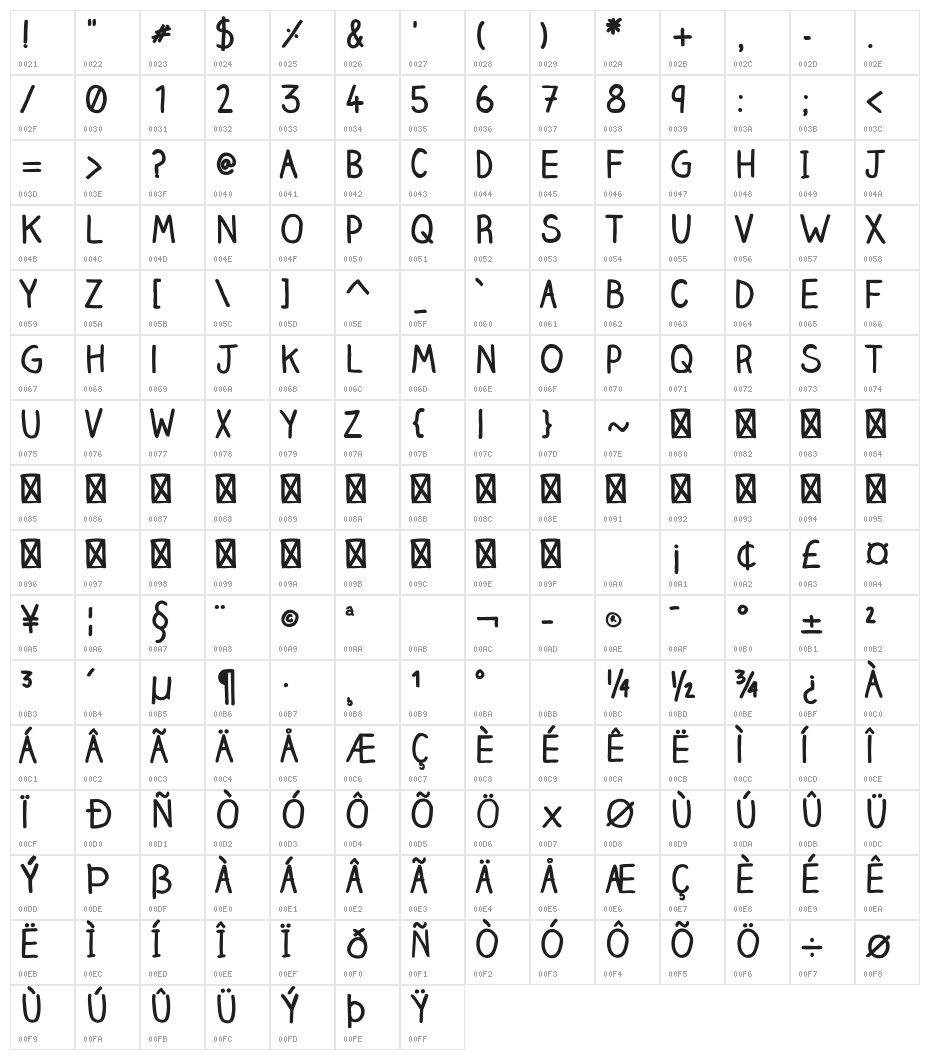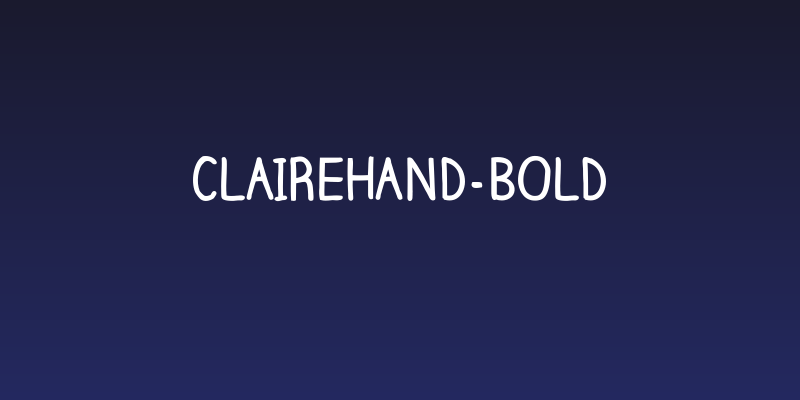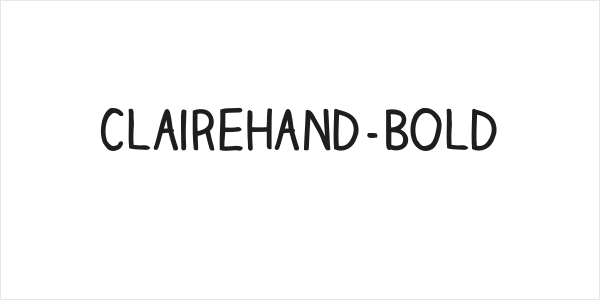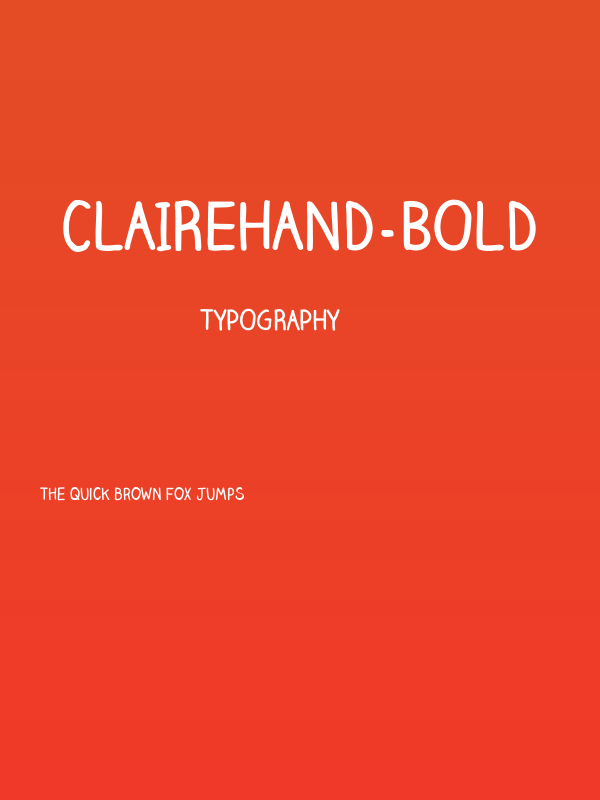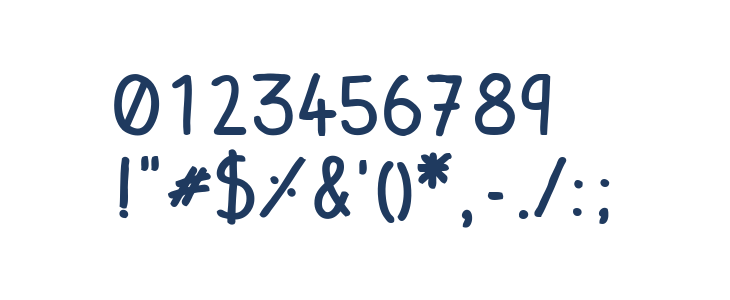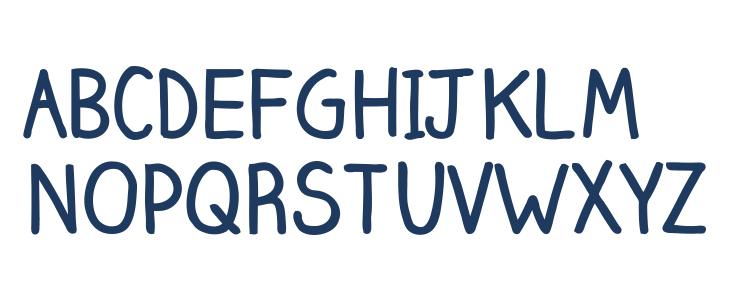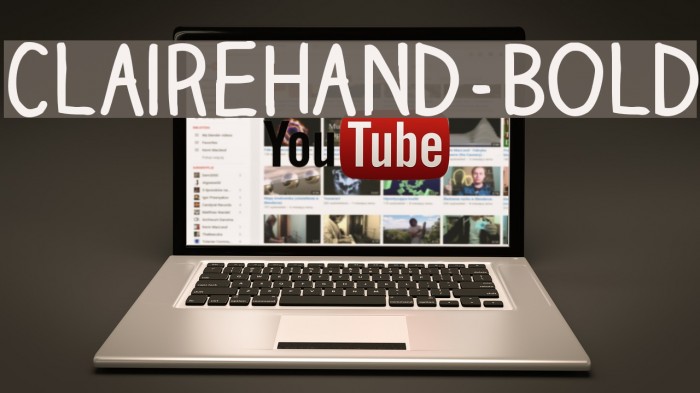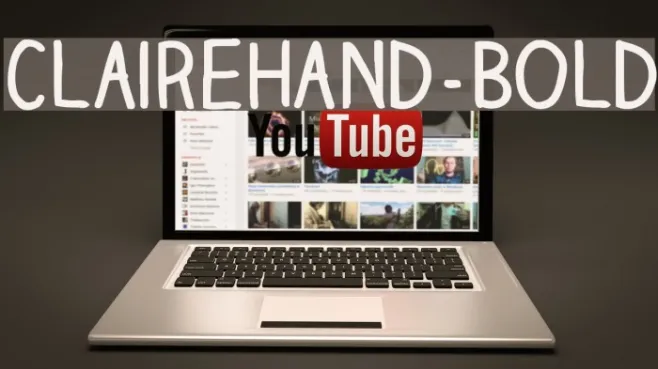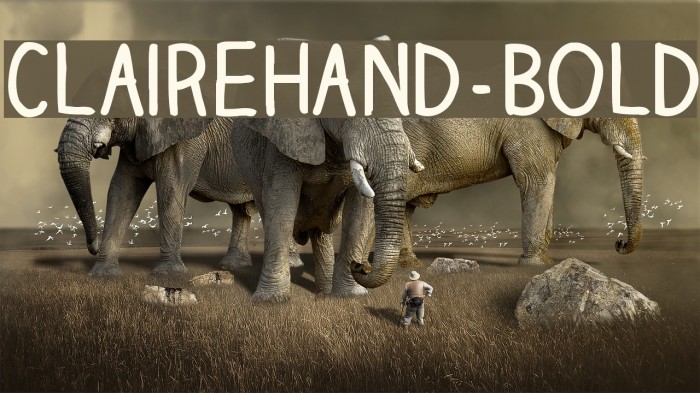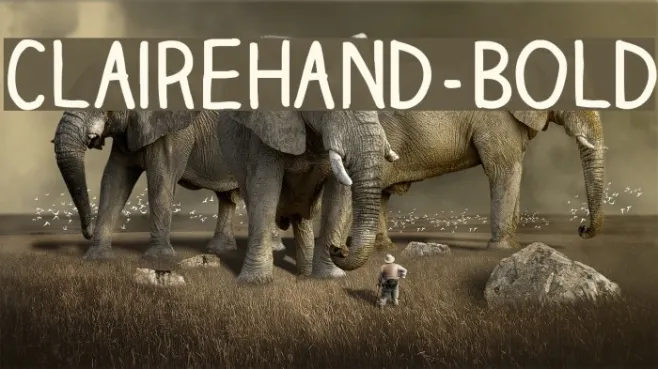
ClaireHand-Bold Font
ClaireHand-Bold Description
This font features a playful and casual handwritten style, characterized by its bold and rounded letterforms. The strokes are consistent in thickness, giving it a uniform appearance. The characters are slightly slanted, adding to the informal and friendly vibe. The spacing between letters is moderate, ensuring readability while maintaining its whimsical charm. This font includes a full set of uppercase and lowercase letters, numerals, and a variety of special characters, making it versatile for different design needs. Its overall appearance is approachable and lively, perfect for projects that require a personal touch.
| Proposed Projects | Ideal for greeting cards, children's books, playful branding, and casual invitations. |